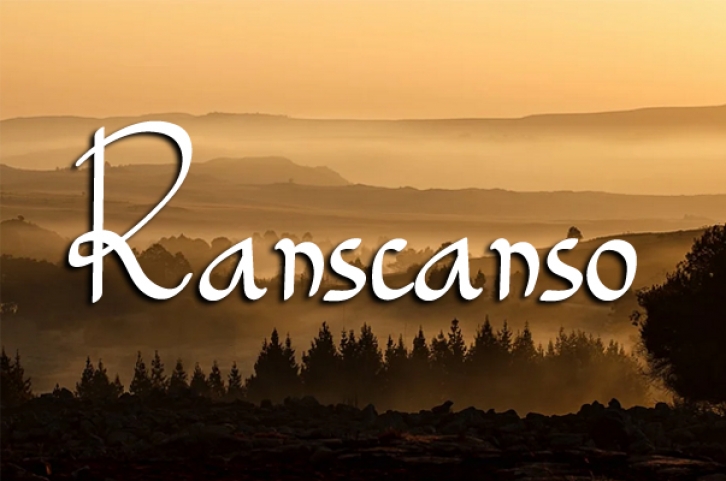
Ranscanso is a delicate and cursive handwritten font. It looks beautiful on a variety of designs requiring a personalized style, such as wedding invitations, thank you cards, weddings, greeting cards, logos and so on.Â